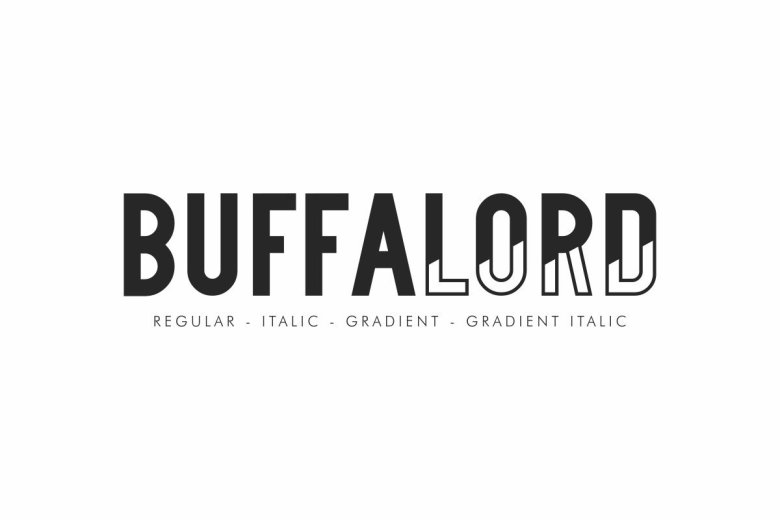
Buffalord Sans Serif Font Family
Buffalord Sans is a sans serif display font. Originally made by NihStudio Font Designer : Fajar Saepul and Suci. Buffalord will be great for any projects (require extended ) including : branding, logo, stationery, business card, signage, flyer, brochure etc. The Buffalord has 4 styles : Regular, Italic, Gradient and Gradient Italic.